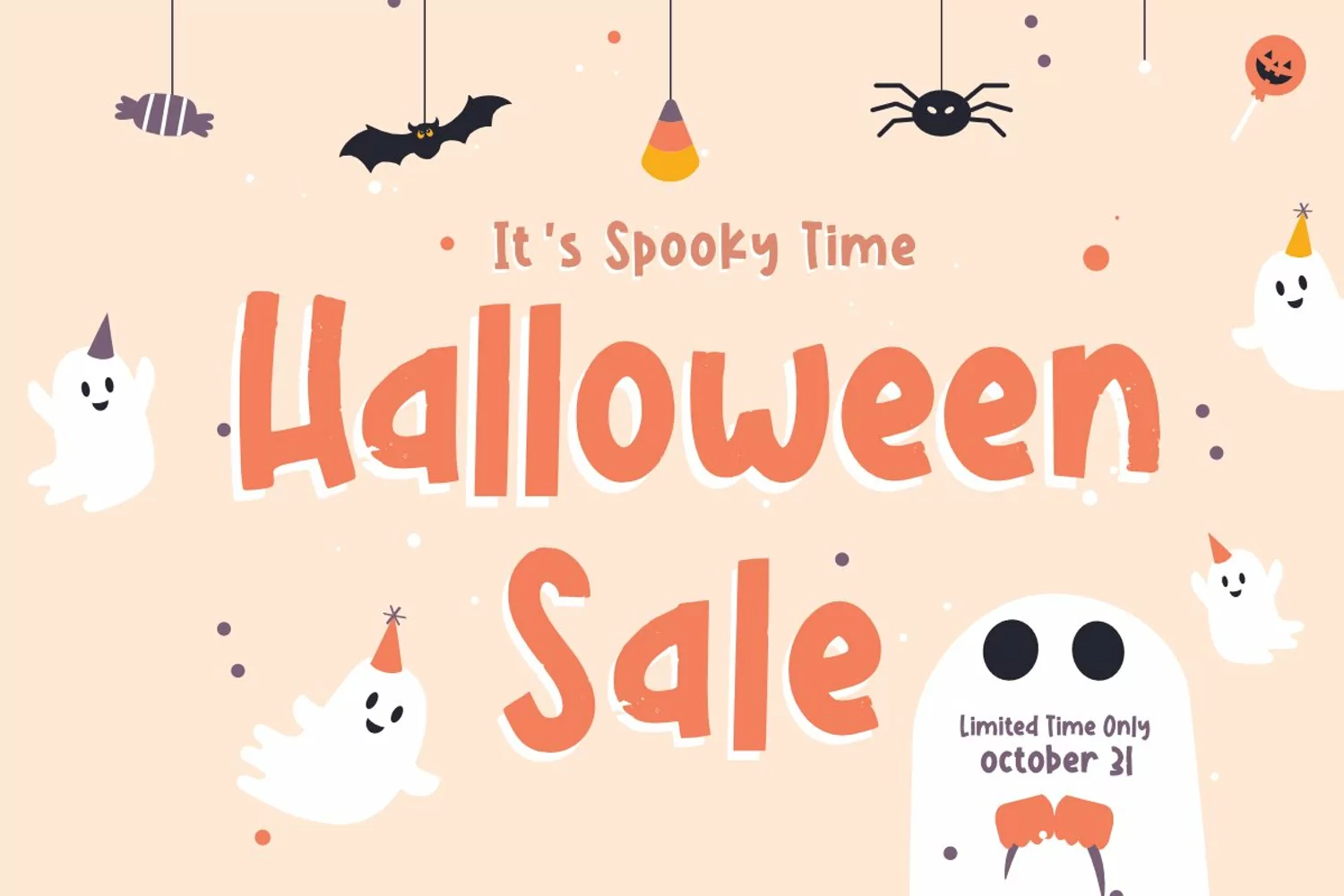
Introducing " Honey Moon "
Honey Moon Is a Display Font with rough effect
You Can Mix And Match for Your Awesome Project
This fonts is ideal for crafting, branding and decorate your any project. This fonts are perfect for wedding invitation or your blog. Also with their help, you can create a logo or beautiful frame for your home. Or just use for your business, book covers, stationery, marketing, magazines and more.